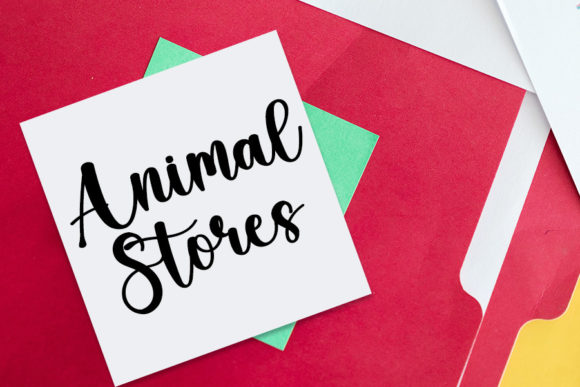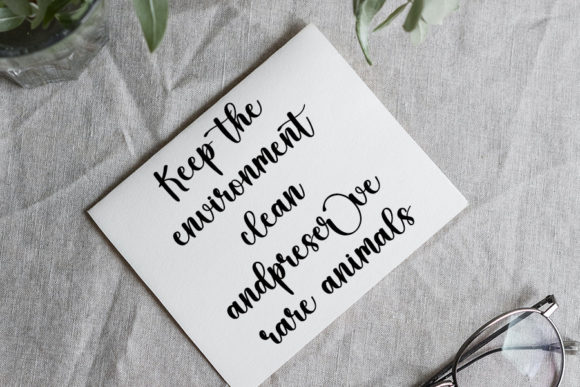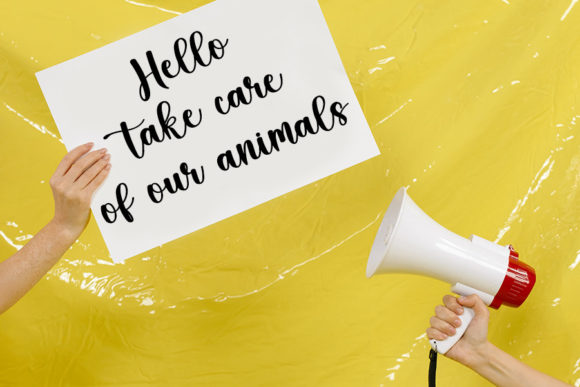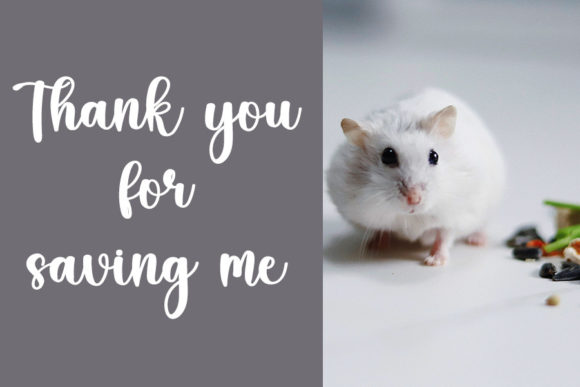
Introducing Hamster Font: Elevate Your Designs with Timeless Elegance
In the world of typography, few fonts manage to capture the essence of classic calligraphy while still exuding a modern vibe. Hamster Font is one such gem that seamlessly blends traditional elegance with contemporary flair, making it a must-have for designers and crafters alike. Inspired by timeless classic calligraphy, Hamster Font brings an impeccable form and stylish script that can elevate any design project.
The Inspiration Behind Hamster Font
Hamster Font draws its inspiration from the rich heritage of calligraphy, a art form that has been perfecting the art of beautiful handwriting for centuries. The creators of Hamster Font have meticulously studied the classic scripts and incorporated their findings into this font, ensuring that it not only pays homage to its roots but also brings a fresh perspective to the table. The result is a font that feels both nostalgic and modern, a perfect blend for designers looking to add a touch of sophistication to their work.
Key Features of Hamster Font
- Contemporary Atmosphere and Impeccable Form: Hamster Font boasts a clean and modern design that fits well with current design trends. Its impeccable form ensures that it is legible and visually appealing, making it suitable for a wide range of applications, from branding and advertising to packaging and digital media.
- Stylish Script: The script style of Hamster Font is both elegant and versatile. It can be used to create stunning headlines, add a touch of class to body text, or even design beautiful quotes and phrases. The flowing lines and carefully crafted letterforms ensure that the font looks great in both digital and print formats.
Who Can Benefit from Hamster Font?
Hamster Font is a versatile typeface that can be used by a wide range of professionals and enthusiasts. Here are some of the groups that can particularly benefit from this beautiful font:
- Graphic Designers: Whether you’re working on a branding project, creating marketing materials, or designing a website, Hamster Font can add a touch of elegance and sophistication to your work.
- Crafters and Makers: If you’re into crafting, scrapbooking, or any form of DIY project that involves lettering or typography, Hamster Font can be a great addition to your toolkit.
- Digital Artists and Illustrators: For artists who incorporate text into their digital illustrations or want to create typographic art, Hamster Font offers a stylish and modern script that can complement a variety of styles.
- Stationery and Card Makers: If you’re into making your own stationery, greeting cards, or invitations, Hamster Font can help you create beautiful and personalized designs.
Tips for Using Hamster Font Effectively
To make the most of Hamster Font, here are a few tips:
- Mix and Match: Don’t be afraid to experiment with different sizes, colors, and styles. Hamster Font’s versatility shines when it’s used creatively.
- Pair with Other Fonts: Combining Hamster Font with complementary fonts can create stunning contrast and visual interest. Look for fonts that have a similar feel or contrast with Hamster Font’s script style.
- Play with Swashes: Take advantage of the PUA encoding to access swashes and glyphs. These can add a unique touch to your designs and make them stand out.
Hamster Font is more than just a typeface; it’s a tool for creativity and self-expression. Its blend of classic calligraphy and modern design makes it a valuable asset for anyone looking to add a touch of elegance and sophistication to their projects. Whether you’re a professional designer or a hobbyist, Hamster Font invites you to explore new possibilities in typography and design. So why wait? Dive into the world of Hamster Font today and discover how it can elevate your designs to new heights.